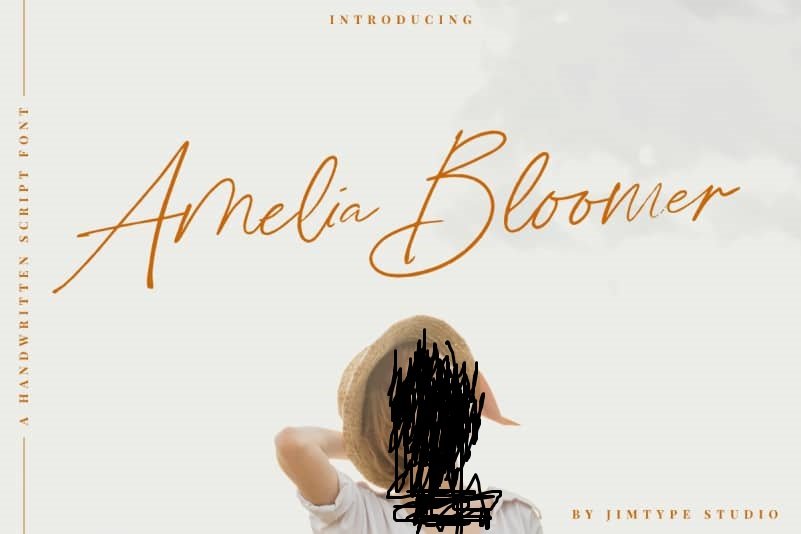
Amelia Bloomer Handwritten Font
Amelia Bloomer Handwritten Font is a beautiful and stylish handwritten font. It is PUA encoded which means you can access all of the glyphs and swashes with ease! Fall in love with this font and bring your projects to the highest levels!